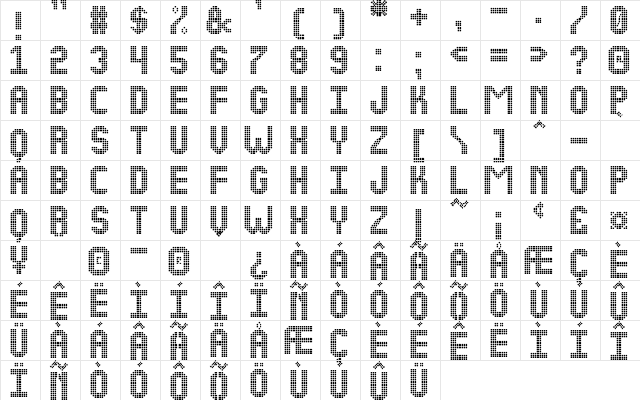
NEW LED DISPLAY ST Regular
Design Context for NEW LED DISPLAY ST Typeface
NEW LED DISPLAY ST is built around its visual character rather than neutral utility — its distinctive forms are designed to make an impression at display sizes.
Font Pairing: Pair with a clean neutral sans-serif for body copy to let NEW LED DISPLAY ST's character lead without overwhelming the composition.
Pro Tip: Use NEW LED DISPLAY ST exclusively at display sizes — it was designed to be seen, not read at length. Let a neutral companion handle body copy.